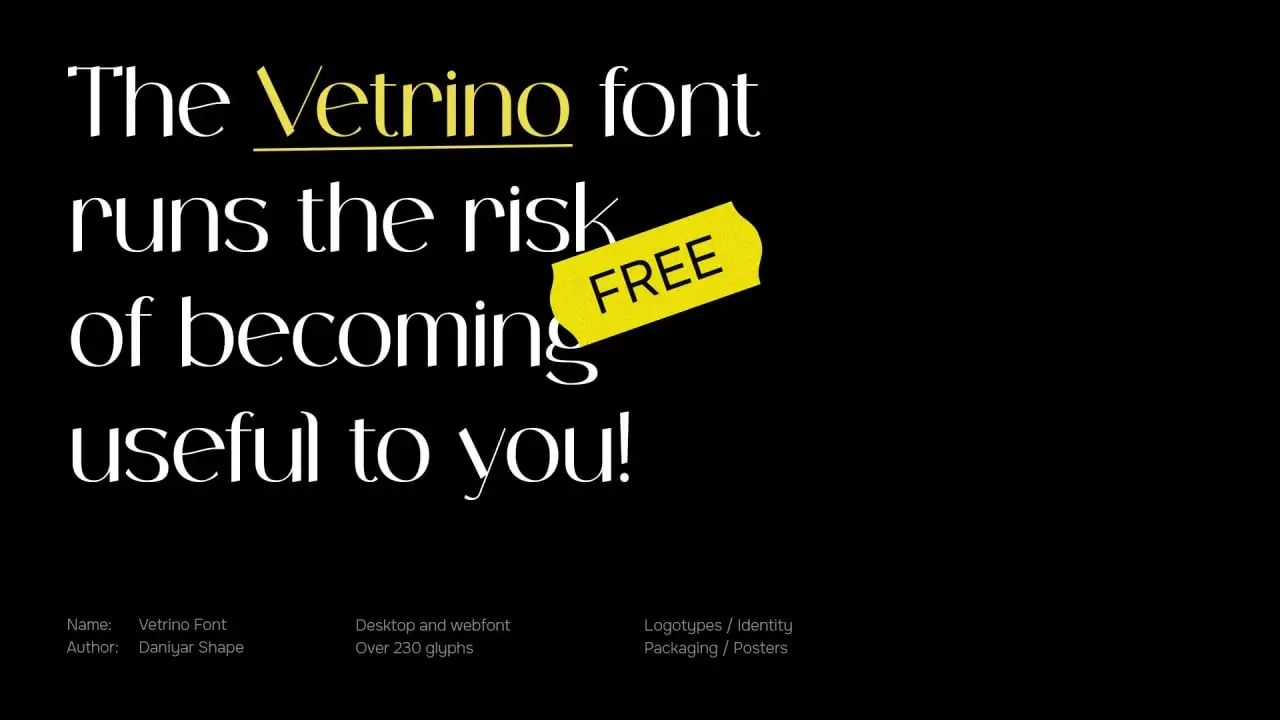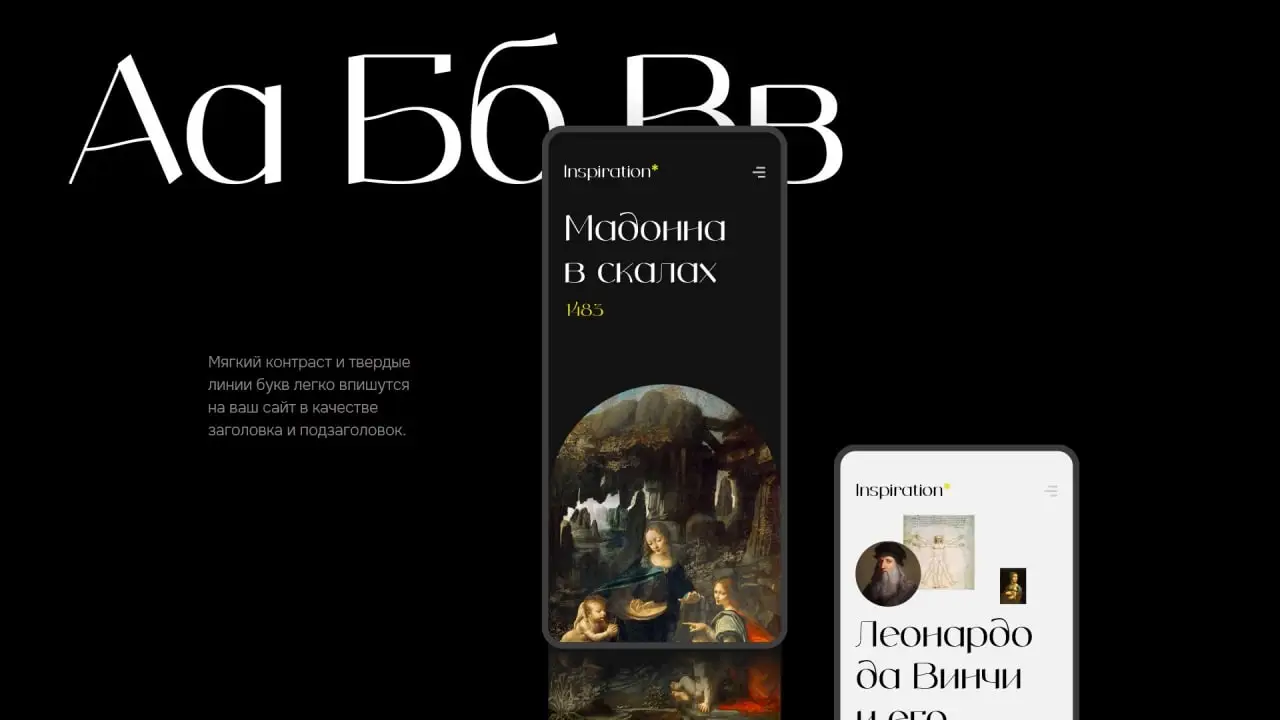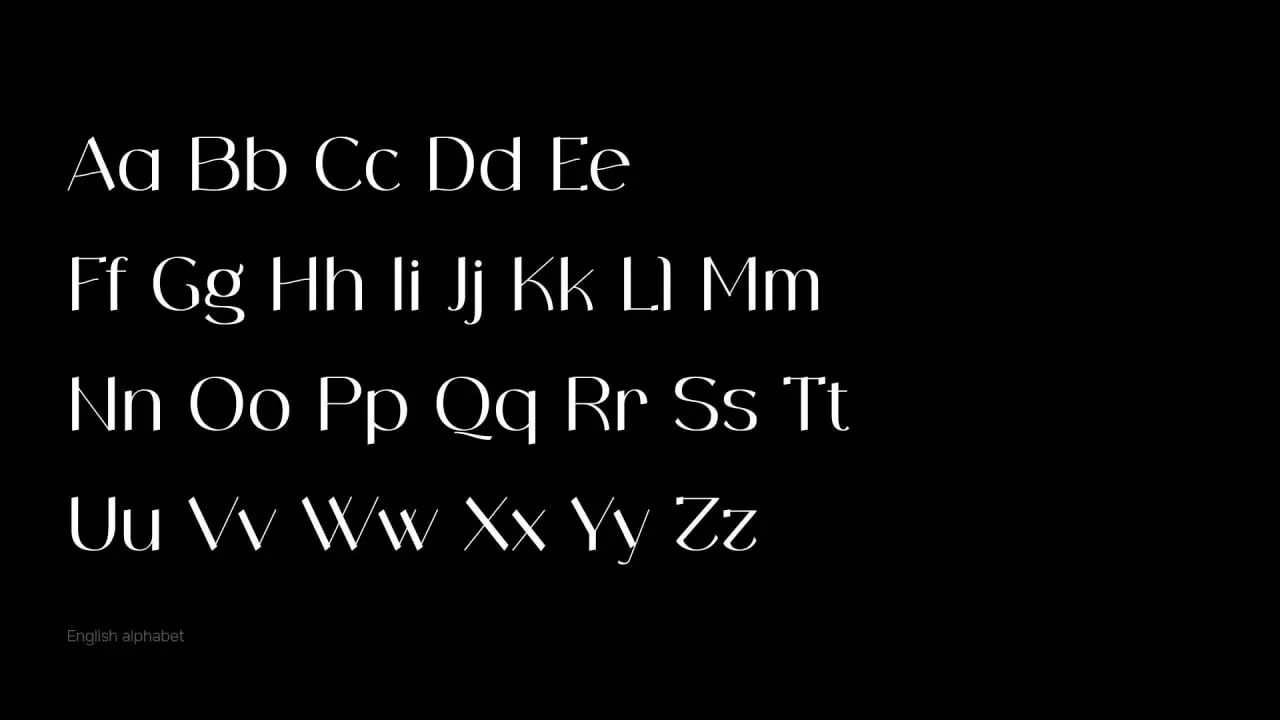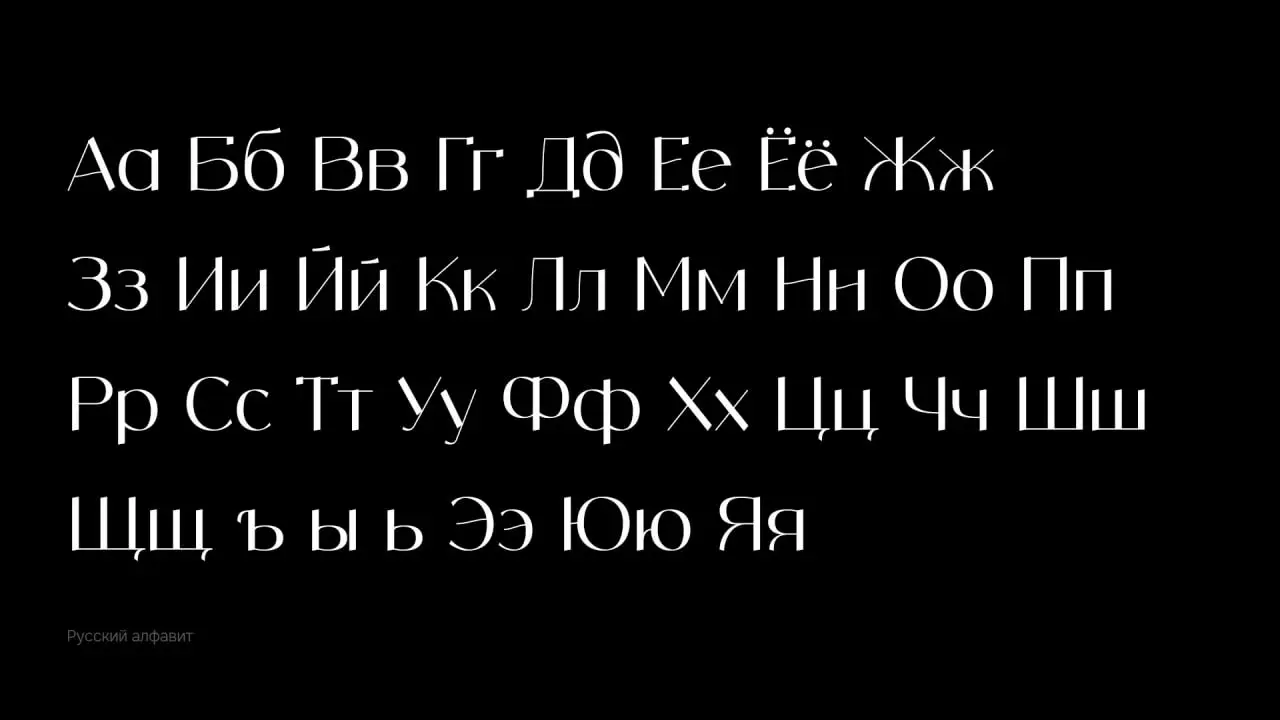
Vetrino Font
The Vetrino Font is a beautifully crafted typeface that perfectly balances elegance and readability. With its unique design, it is ideal for a variety of applications, including branding, logos, and both web and print projects.
• Multiple weights for versatile usage
• Uppercase and lowercase letters included
• Numerals and punctuation for complete typographic support
Utilize Vetrino Font for eye-catching headlines, elegant invitations, or modern branding projects to create a distinctive visual identity.